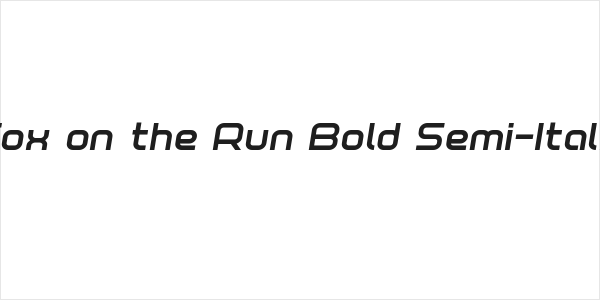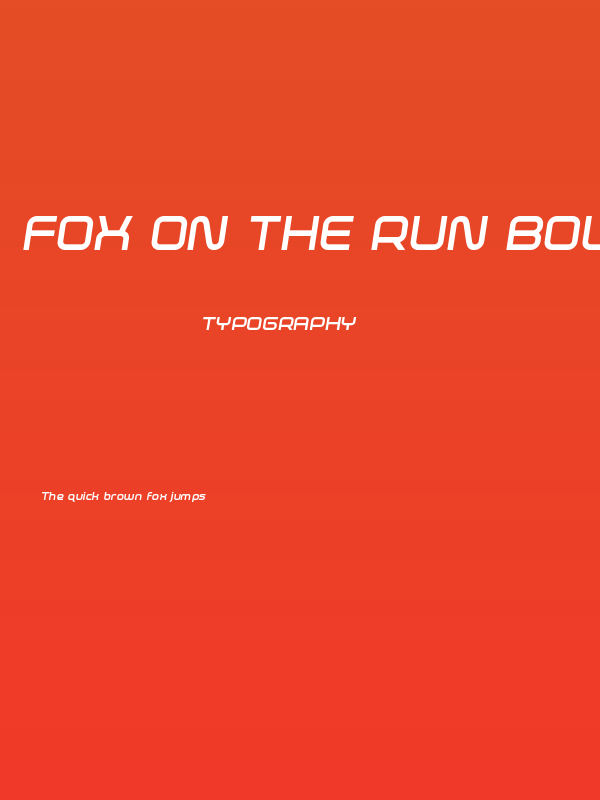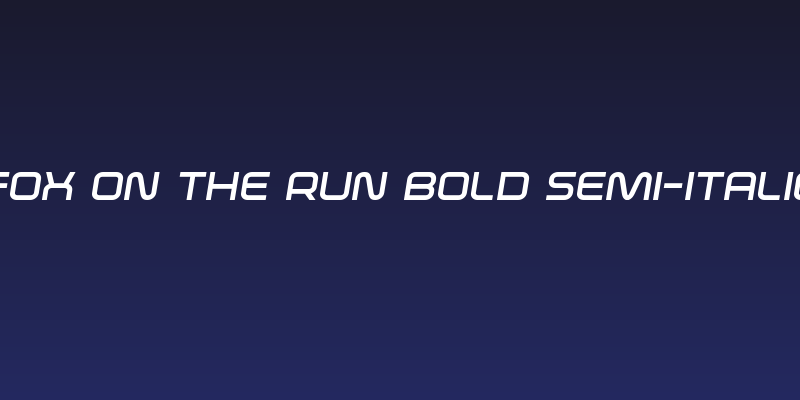
Fox on the Run Bold Semi-Italic Font
Fox on the Run Bold Semi-Italic Description
This font features a modern and sleek design with a semi-italic style that adds a dynamic and forward-leaning appearance. The characters are bold, providing a strong visual impact, while the rounded edges soften the overall look, making it approachable and friendly. The uppercase and lowercase letters maintain a consistent style, with a slight slant that enhances the sense of motion. The numerals are clear and distinct, ensuring readability. Special characters are well-integrated, maintaining the font's cohesive aesthetic. This font is versatile, suitable for a variety of design projects that require a contemporary and energetic feel.